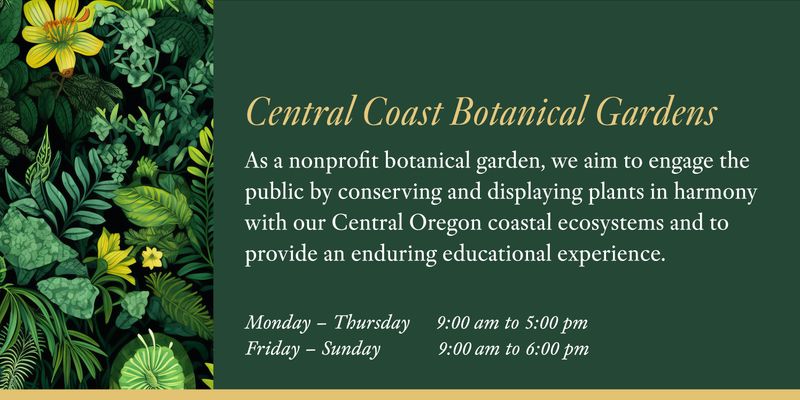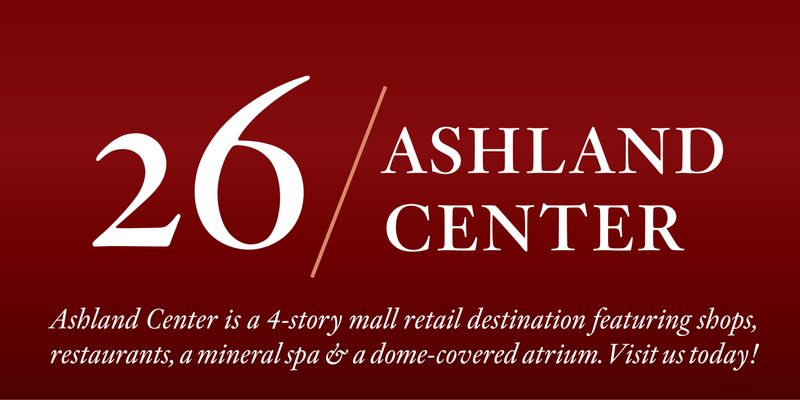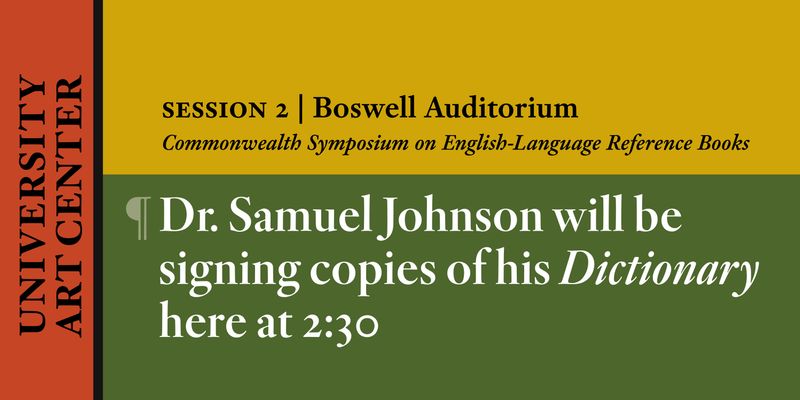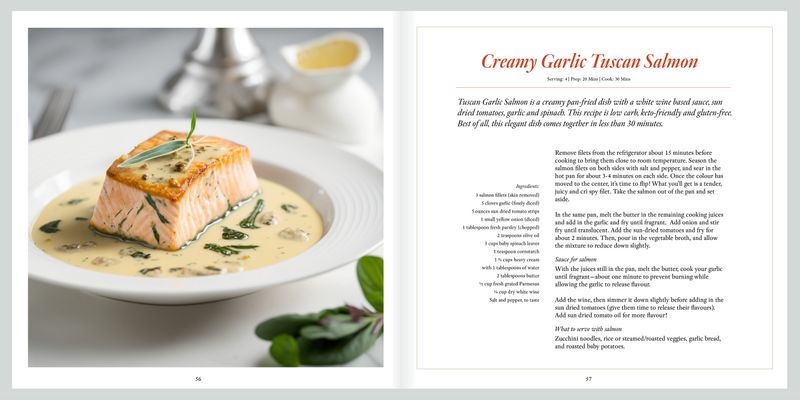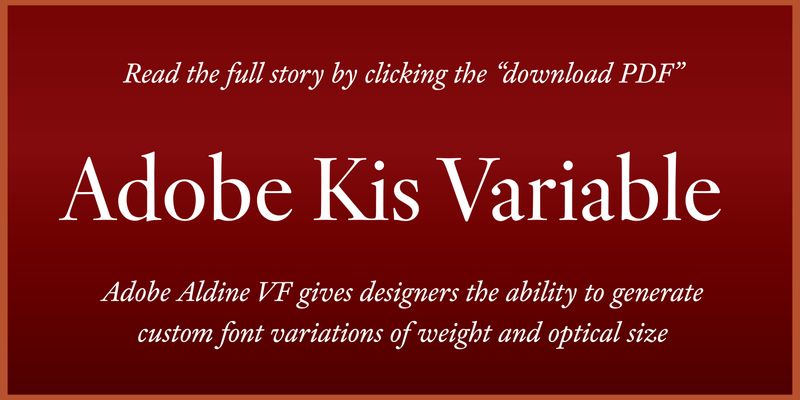
Adobe Kis (pronounced “Kish”) is the latest revival of a classical book type to be offered by Adobe. Designer Robert Slimbach has sought to capture the vitality and nuance of the original types, while adapting them to the evolving demands of the digital medium.
Adobe Kis is a sturdy, versatile text typeface in the style of 17th-century Dutch types, although its creator Nicholas Kis was Hungarian. It is well suited for use in books: novels, history, popular science, essays, travel books, cookbooks, and reference books. It can function well in both reports and publication designs.
As a variable font, it is adaptable to the shifting requirements of changing page layouts with an optical size axis!